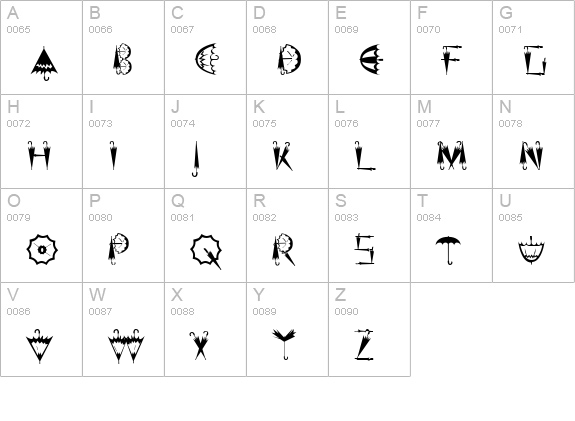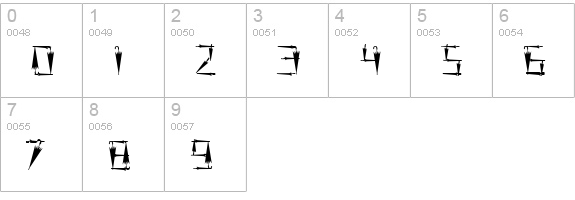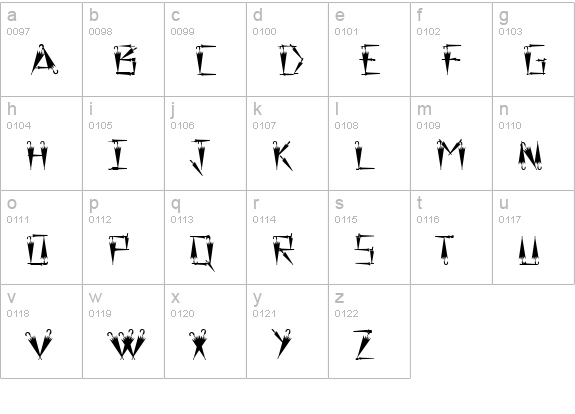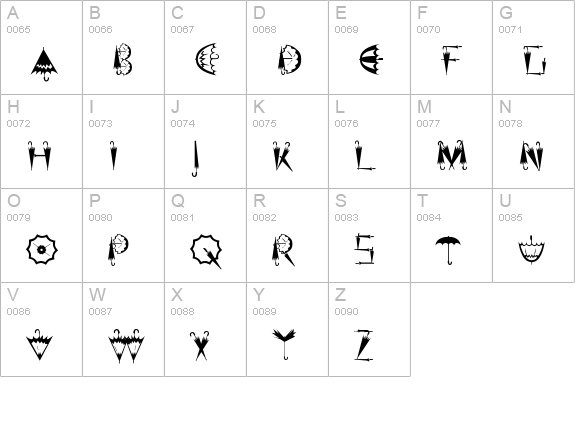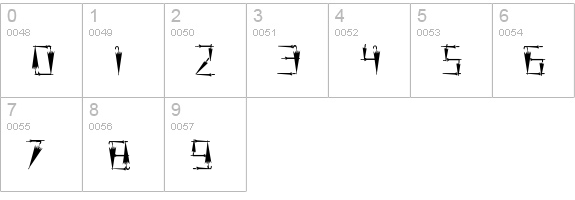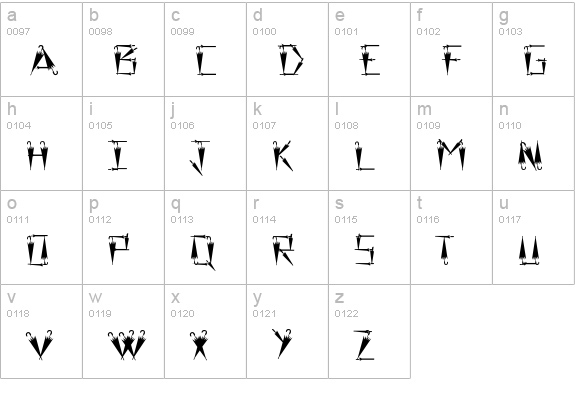
BumberShoot Font Details
BumberShoot font is a whimsical and playful typeface that exudes a sense of fun and creativity. Its unique design features curvy lines and bold strokes, making it perfect for eye-catching headlines and branding projects. This font is versatile and can be used for a wide range of design applications, from posters to social media graphics. The best part about BumberShoot font is that it is completely free to download at FontsMarket.com. This means you can easily access this charming font and incorporate it into your design projects without any cost. Whether you're a seasoned designer or just starting out, BumberShoot font is a great addition to your font library, adding a touch of personality and flair to your creations. Download it now and let your creativity soar with this delightful typeface!